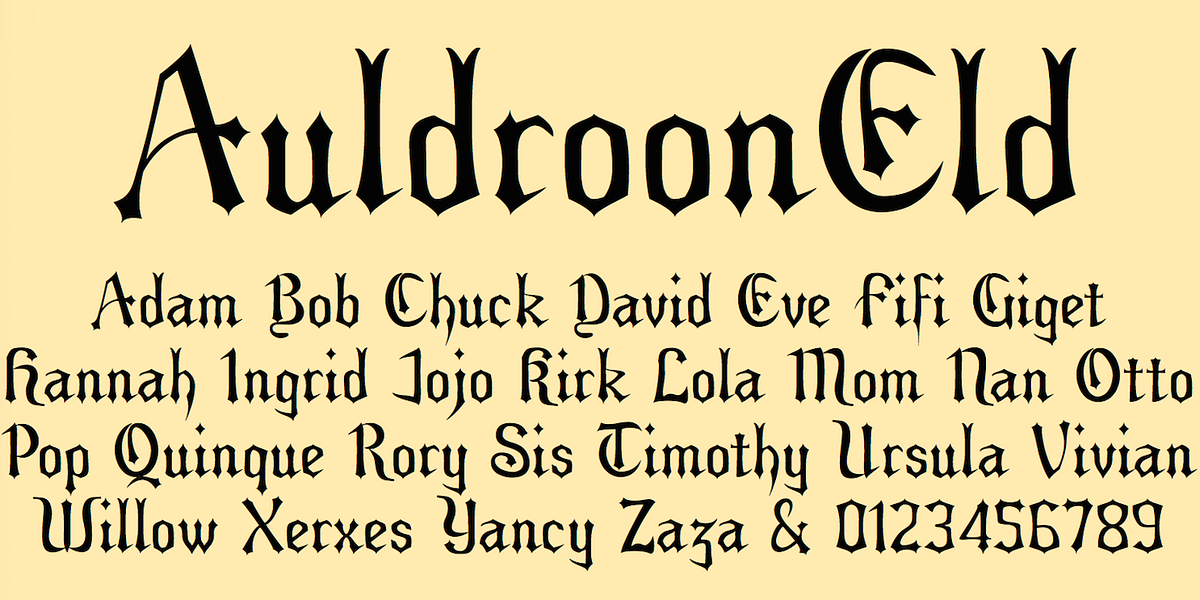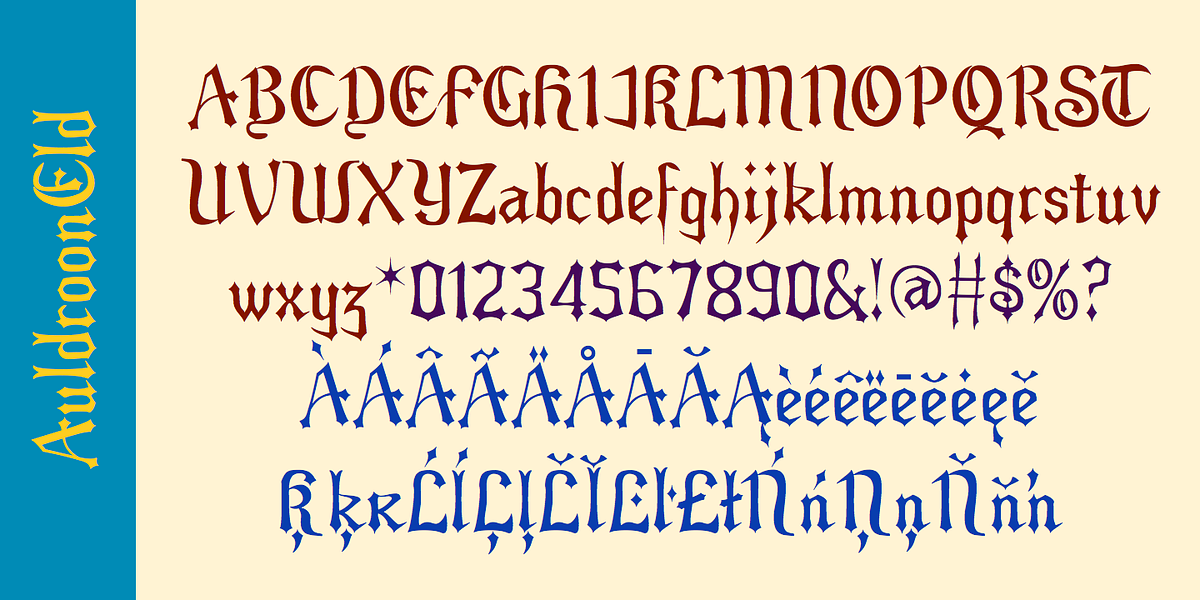
AuldroonEld
Auldroon is a decorative serif font inspired by pseudo-medieval styles popular in the late 19th century. It comes in two variants: Auldroon-Eld, which is slightly more compact, and a regular version. Both are designed to be visually distinctive but were not created with a specific use case in mind.